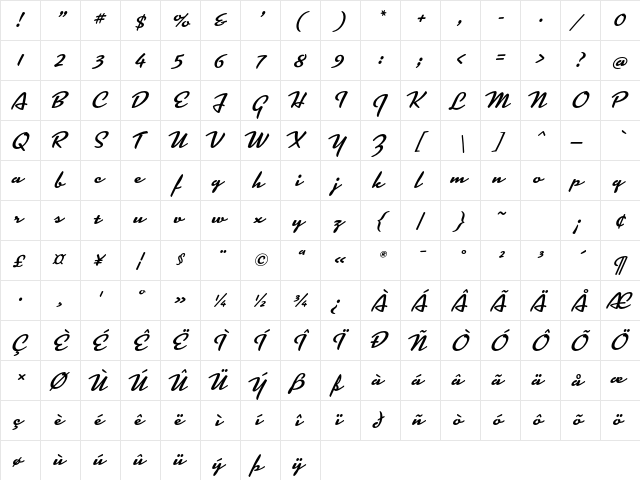
Kinescope Regular
| Designer | Mark Simonson |
Design Context for Kinescope Typeface
Kinescope takes a measured approach to typography — its balanced proportions and neutral character make it a reliable workhorse for both digital and print work.